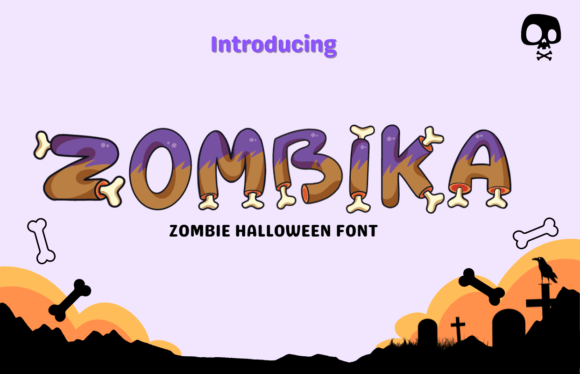
Journey into the realm of spine-chilling artistry with Zombika Font, a display font that's not for the faint of heart. Inspired by the eerie charm of skeleton bones and the mystical allure of zombies, Zombika brings a touch of spooky elegance to your creative endeavors.
Unlock a world of hauntingly beautiful designs with Zombika's unique character set, carefully crafted to evoke the spirit of Halloween and the otherworldly charm of a zombie invasion. Each letter dances with an eerie delight, ready to transform your artwork, gifts, souvenirs, or festival celebration products into captivating masterpieces.
Zombika's versatility extends beyond the realm of mere text; it's also a font designed for adventure. Dive into the world of print-on-demand and apparel, conjuring t-shirts that speak volumes of your dark and quirky style.
But Zombika is more than just a font; it's an invitation to unleash your creative spirit and embrace the macabre. Its playful yet menacing strokes ignite a spark of imagination, urging you to create designs that are as unique as they are unforgettable.
Transform your creative vision into a captivating reality with Zombika Font. Let your imagination run wild as you craft artwork that sends shivers down spines and leaves a lasting impression. Embrace the thrill of the unknown and let Zombika guide you on an artistic journey like no other.
Don't resist the call of the undead; succumb to the allure of Zombika Font today and let your creativity thrive in the realm of the supernatural.